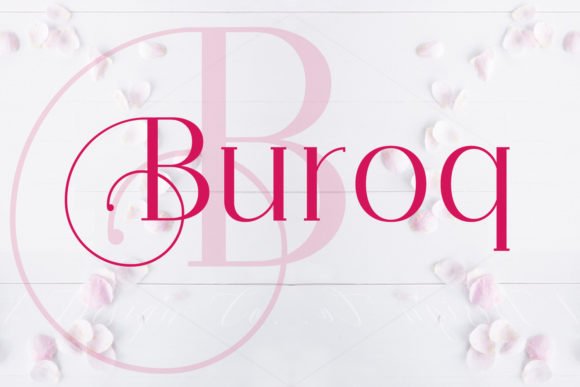
The Perfect Font for Your Next Design Project
You know that moment when you stumble upon a font that makes your design project come alive? The one that adds a touch of magic and elevates your entire aesthetic? For many designers, that moment is when they discover the Buroq Font. This elegant typeface is the perfect addition to any design, lending an air of sophistication and romance to even the most mundane projects.
Whether you’re a seasoned designer or just starting out, the Buroq Font is a valuable asset to have in your toolkit. Its modern charm makes it versatile and adaptable to a wide range of design styles, from editorial layouts to wedding invitations. With the Buroq Font, you’ll be able to create designs that are both timeless and trendy, perfect for capturing the essence of your brand or personal style.
Buroq Font Key Features
- Unique Characteristics: Buroq Font features a unique blend of modern and vintage elements, with a distinctive geometric shape and a subtle flair.
Buroq Font Review
I recently had the chance to work with the Buroq Font, and I must say, it’s an interesting addition to the world of typography. ✨ One thing that really stood out to me is its modern and sleek design, perfect for any digital project that requires a touch of sophistication.
Here are some key features that I liked about the font:
- ✨ Unique and modern design that sets it apart from other fonts
- ✨ Highly legible, making it perfect for long blocks of text
- ✨ Supports a wide range of languages, making it a great choice for global projects
However, there are some limitations that I think are worth mentioning:
- ⚠️ Limited character set, which can be a problem for projects that require special characters or symbols
- ⚠️ Not ideal for use in print materials, as it can be difficult to read in smaller sizes
Overall, I think the Buroq Font is a great choice for digital projects, but it may not be the best fit for every project. If you’re looking for a modern and sleek font that’s perfect for digital use, Buroq is definitely worth considering.
Buroq Font is suitable for a variety of design projects, including:
- Business cards and stationery